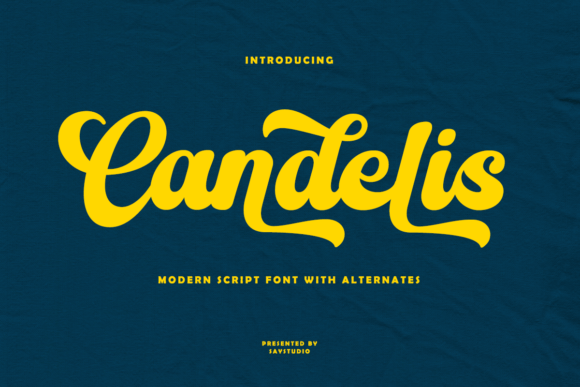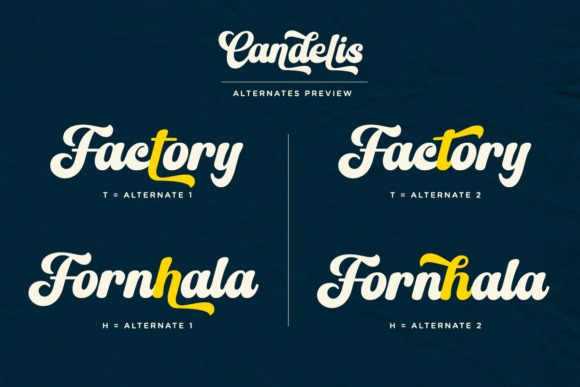
Candelis Font: Bold Script for Eye-Catching Social Media & Logo Design
About the Candelis Font
Meet Candelis Font, a stunning font that brings a touch of elegance and professionalism to any design. Candelis is an elegant and bold script font. Fall in love with its incredibly versatile style and use it to create gorgeous wedding invitations, beautiful stationary art, eye-catching social media posts, and much more!
Candelis excels in applications requiring a touch of refined boldness, such as logos, headlines, short-form text on packaging, and select social media graphics. Its elegant strokes are ideal for branding projects that convey sophistication and luxury. However, its decorative nature makes it unsuitable for body text or UI elements where readability is paramount. Extended use could hinder legibility.
Pairing Candelis effectively requires consideration of its strong personality. A clean sans-serif like Montserrat or a geometric sans-serif like Futura would create a balanced contrast, grounding its flourish. For a more traditional feel, a subtle serif like Garamond or Lato could work well. Avoid pairing it with other highly decorative scripts, as this would overwhelm the design.
Candelis projects a sophisticated yet confident personality. It’s a strong choice for brands aiming for a premium or high-end image, particularly in the fashion, beauty, or luxury goods sectors. Its bold elegance makes a statement without being overly flashy.
Candelis Font Usage Examples
Candelis Font Example